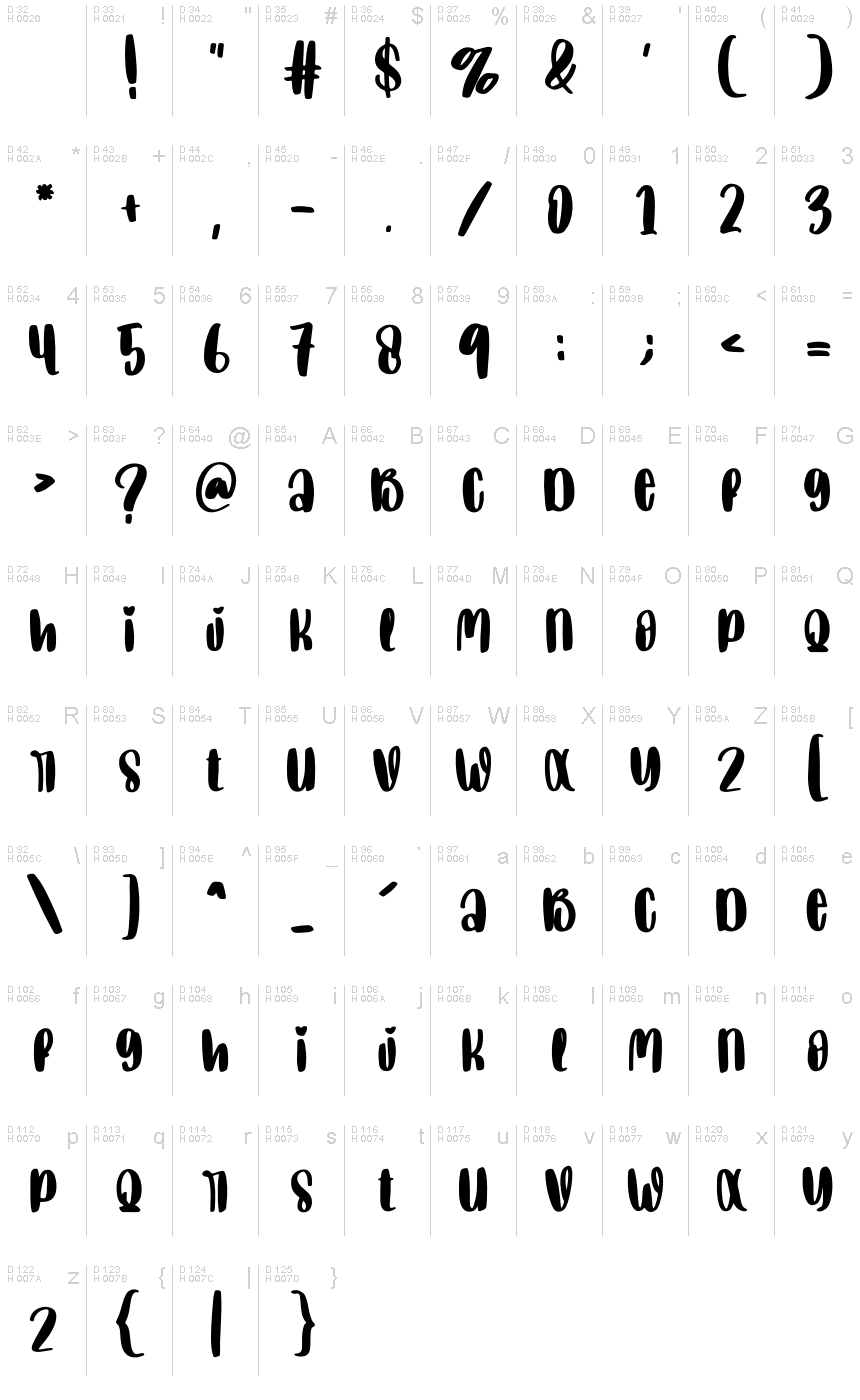
Movie
Movie, a bold and condensed handwritten font designed by Scratchones, captivates with its dynamic, marker-like strokes. The striking, black-and-white aesthetic conveys a sense of raw energy and movement, lending a touch of rebellious charm to any design. Its condensed width and bold weight create an impactful, eye-catching appearance, while the organic, handcrafted feel adds a touch of personality and authenticity.
This versatile font shines in a variety of applications, from eye-catching headlines and posters to gritty, urban-inspired branding and packaging designs. Its bold, expressive qualities make it an excellent choice for projects that require a sense of bold, confident expression, such as album covers, concert promotions, and streetwear-inspired graphics.